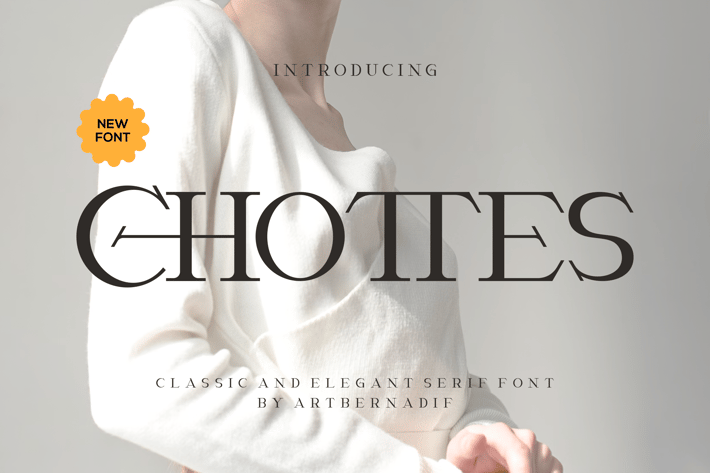
Chottes - Classic And Elegant Serif Font
Introducing our new product Chottes Font Classic And Elegant Serif Font
Chottes Font- Modern Font is a Classic And Elegant Serif display font. The font is suitable for any branding project like logo, t-shirt printing, esport, and many more.
outstanding in a wide range of contexts.